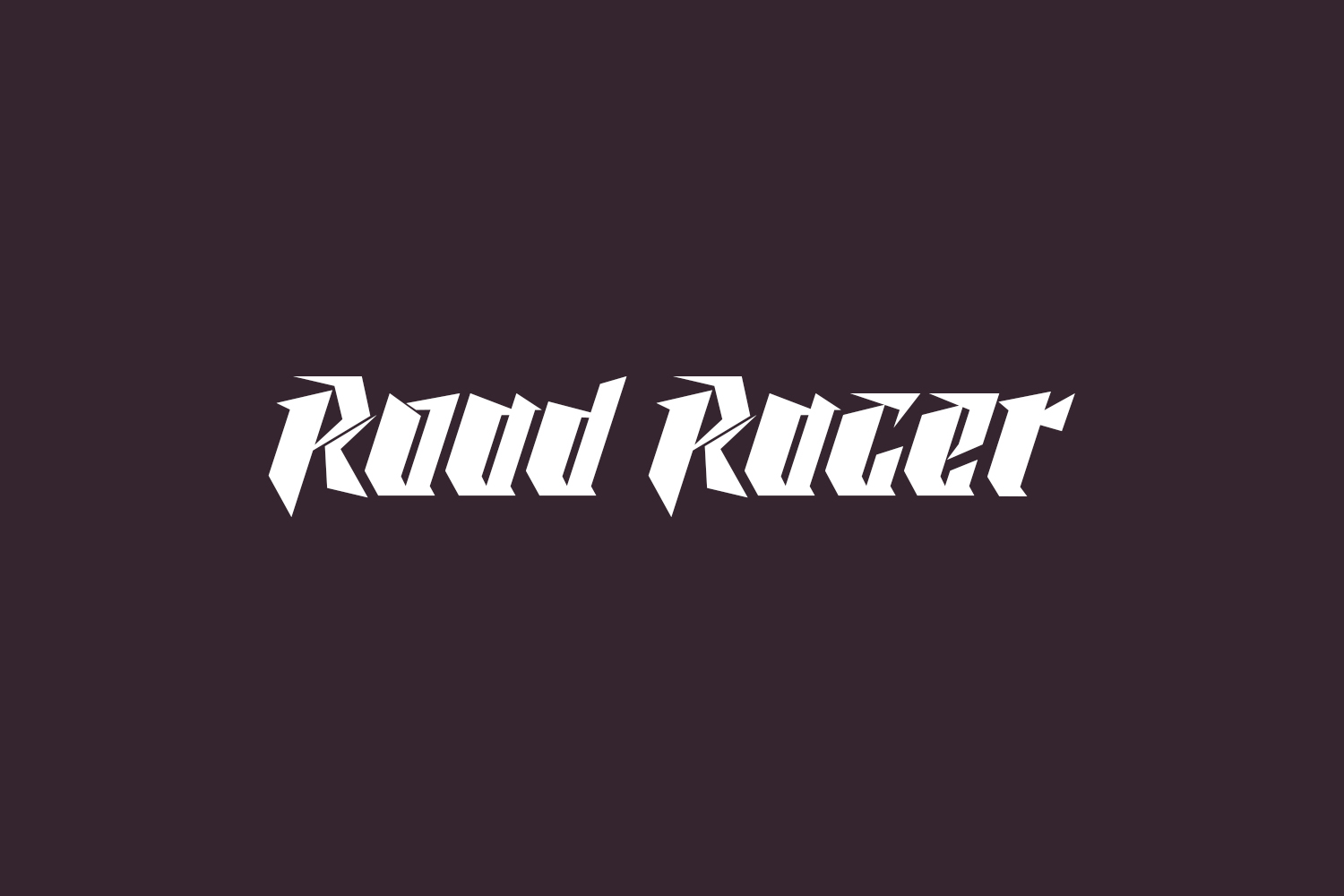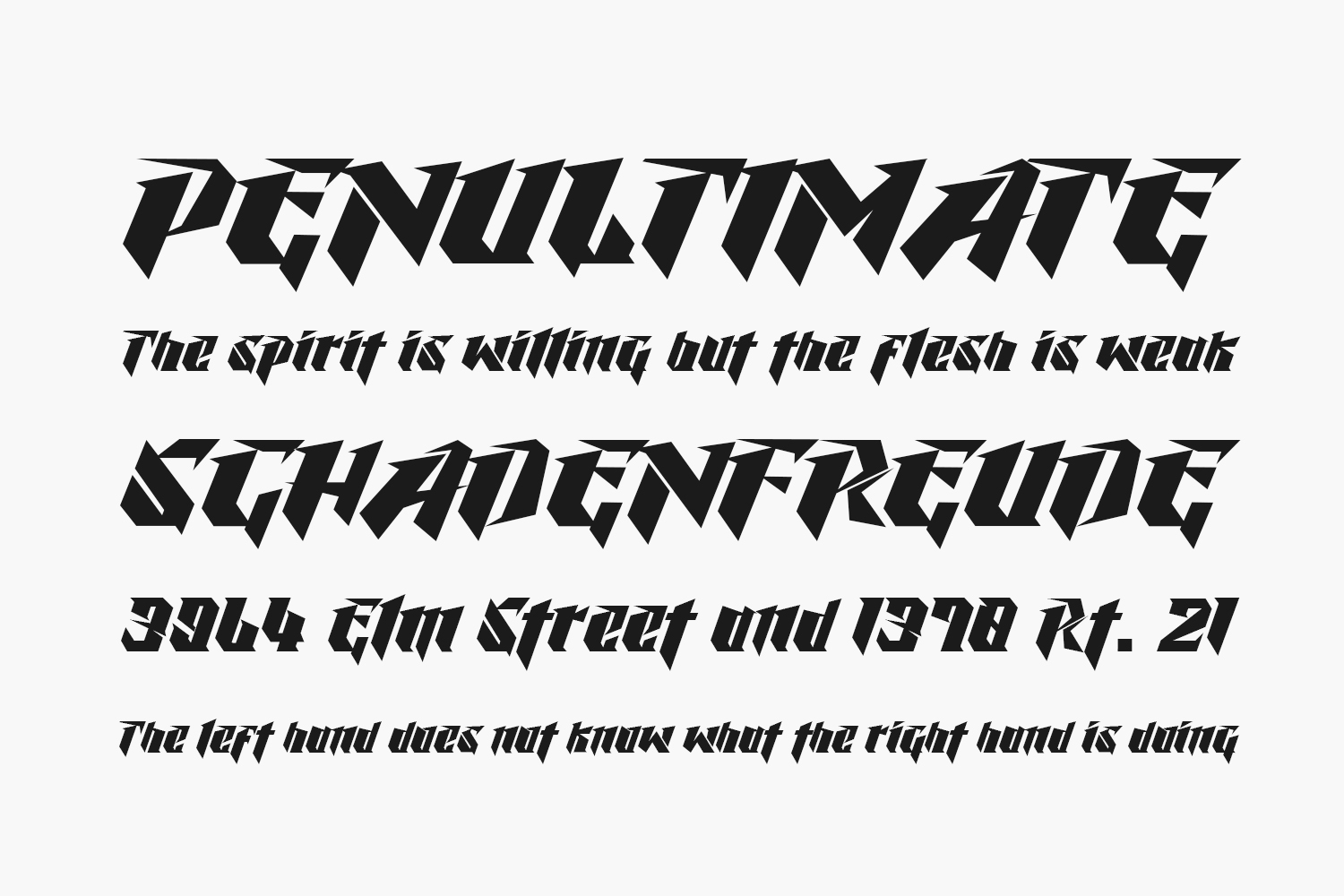
Introducing Road Racer Free Font, an esports-inspired font with a dynamic and sporty character, perfect for automotive design projects, sports branding, and any products that exude energy and movement. Road Racer Free Font was designed by Creativework69 Studio and is free for personal use only. Please purchase the full version for commercial use.